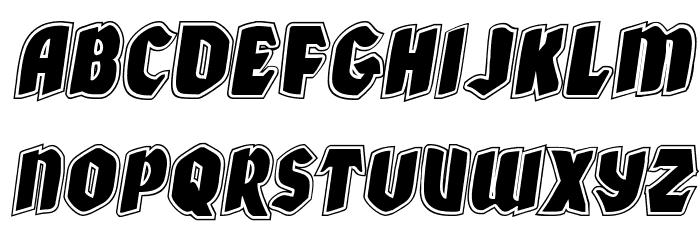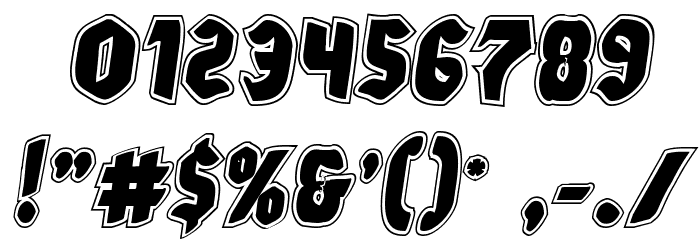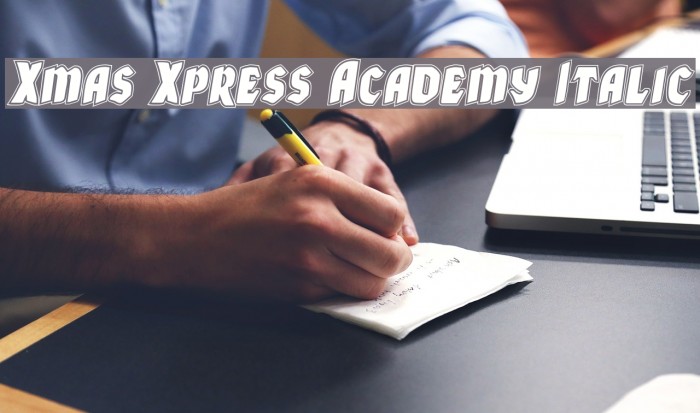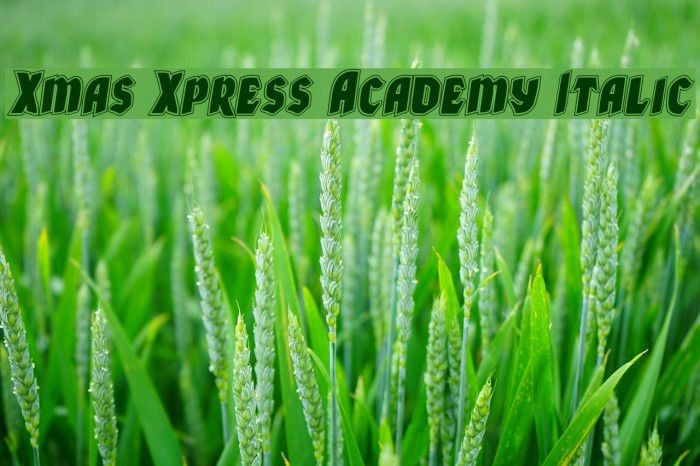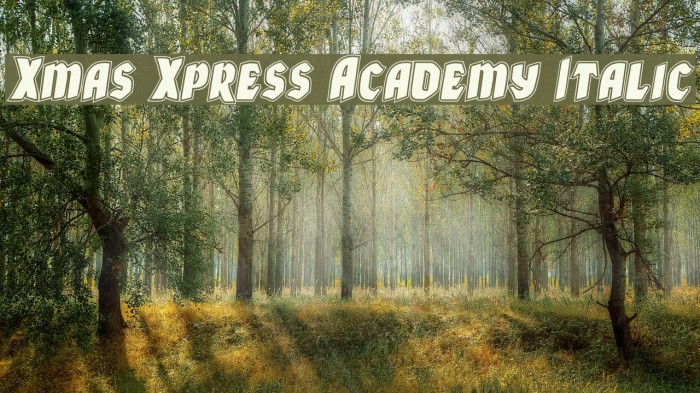
Xmas Xpress Academy Italic Font
This font features a bold, dynamic style with a strong presence, characterized by its thick, shadowed letterforms that create a sense of depth and movement. The uppercase and lowercase letters are designed with a playful, energetic flair, making them stand out with their bold outlines and italicized slant. The numbers and special characters follow the same aesthetic, ensuring consistency across all glyphs. This font's unique style is perfect for grabbing attention and conveying a sense of excitement and fun.
A bold, italicized font with shadowed letterforms and a playful, dynamic style.
- Proposed Projects: Ideal for holiday-themed designs, festive event posters, playful branding, and eye-catching headlines.